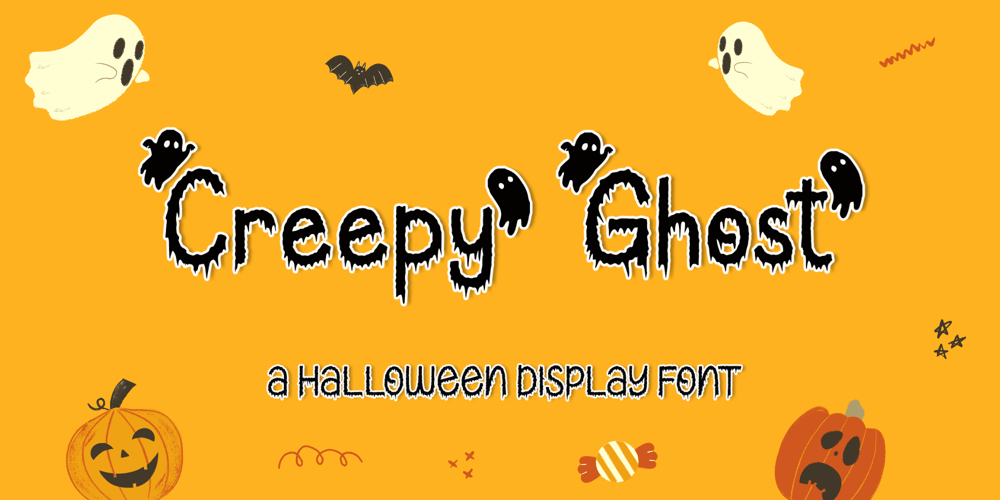
Creepy Ghost
Creepy Ghost font
Creepy Ghost Font Family was designed by Agung Eko Nugroho and published by AEN Creative Studio. Creepy Ghost contains 2 styles and family package options. Creepy Ghost is a cool and spooky display font. This font is PUA encoded which means you can access all of the glyphs and swashes with ease!Add it confidently to your favorite creations and let yourself be amazed by the outcome generated.